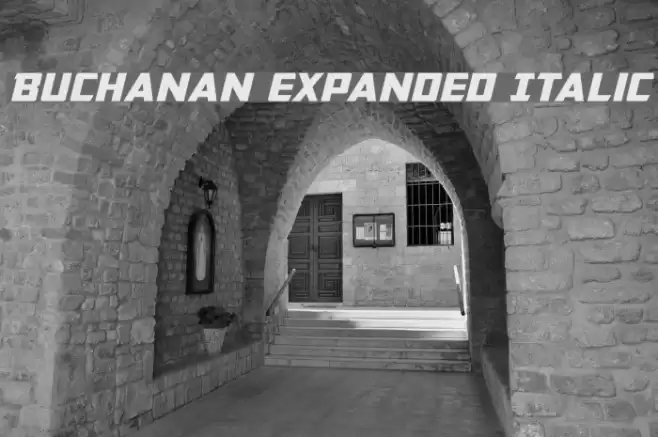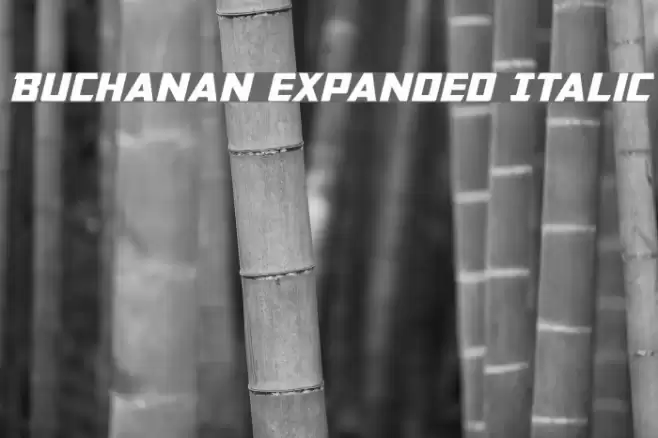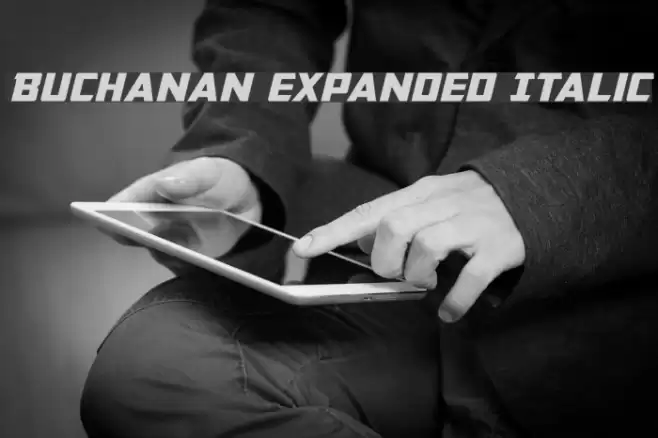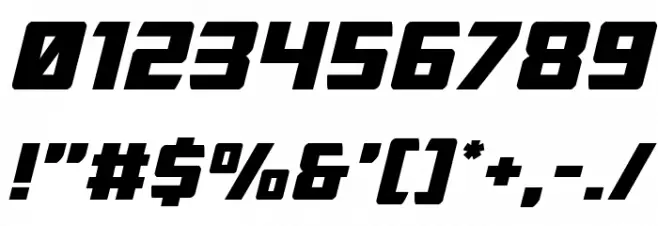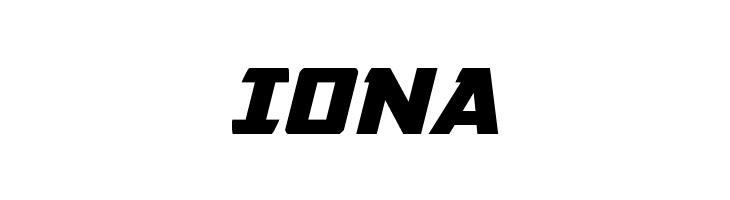
Buchanan Expanded Italic Font
Buchanan Expanded Italic Description
This font features a bold and dynamic style with an italic slant, giving it a sense of movement and energy. The characters are expanded, providing a wide and impactful appearance. The strokes are thick and consistent, offering a strong visual presence. The font maintains a modern and sleek aesthetic, making it suitable for attention-grabbing headlines and display purposes. Its geometric shapes and sharp angles contribute to a contemporary look, while the italicization adds a touch of sophistication and flair.
A bold, expanded italic font with a modern and dynamic style from Uncategorized fonts.
- Proposed Projects: Ideal for sports branding, dynamic posters, modern advertising, and impactful headlines.